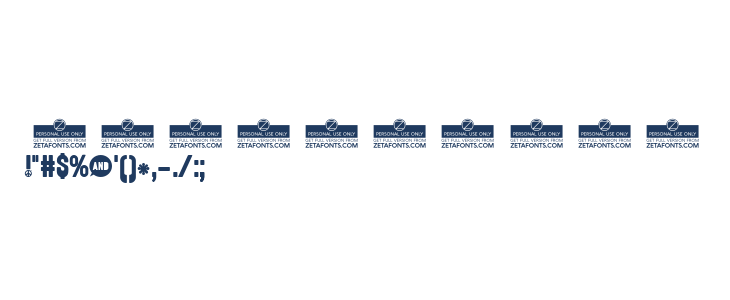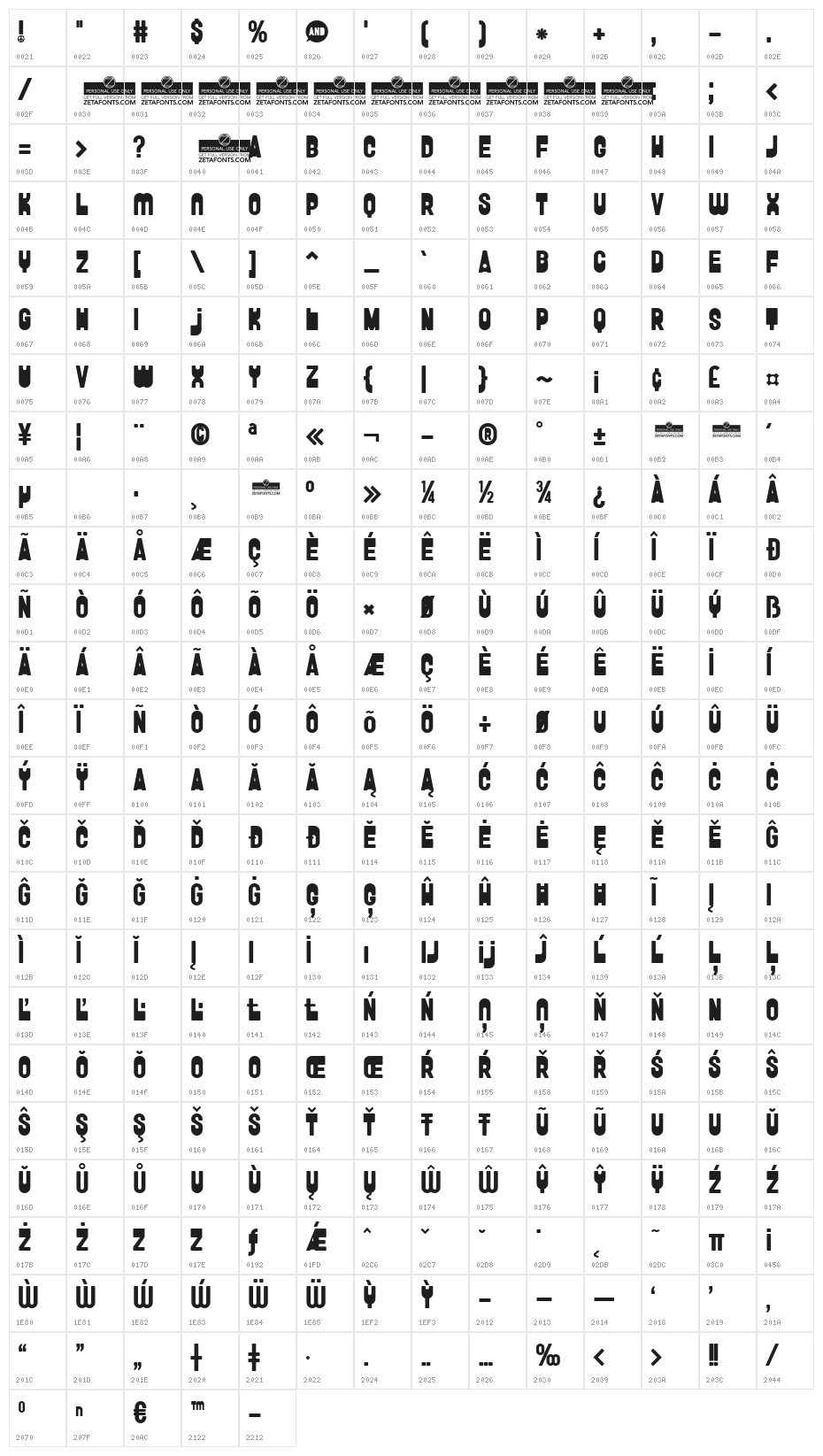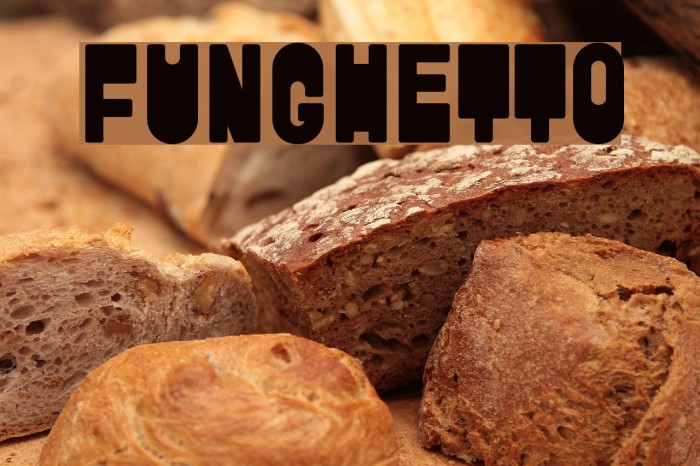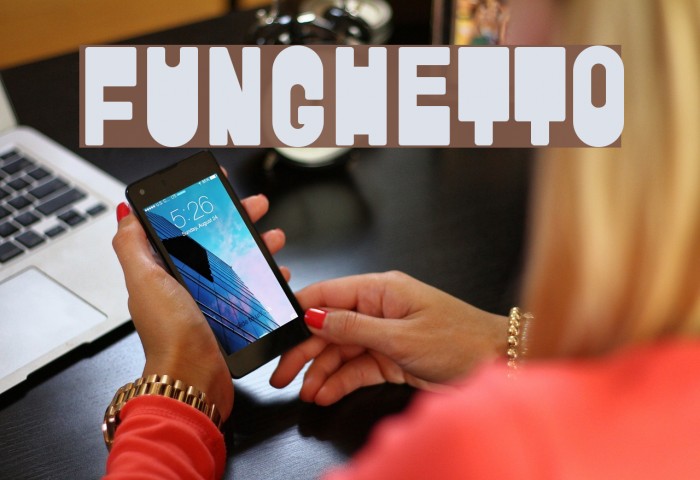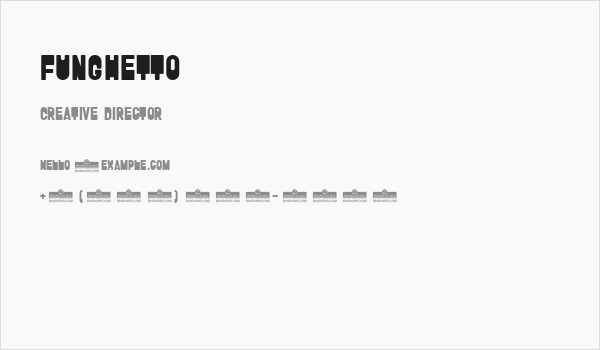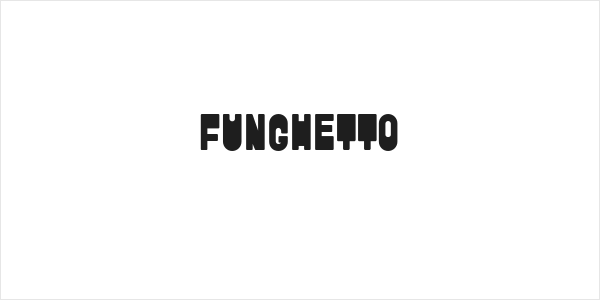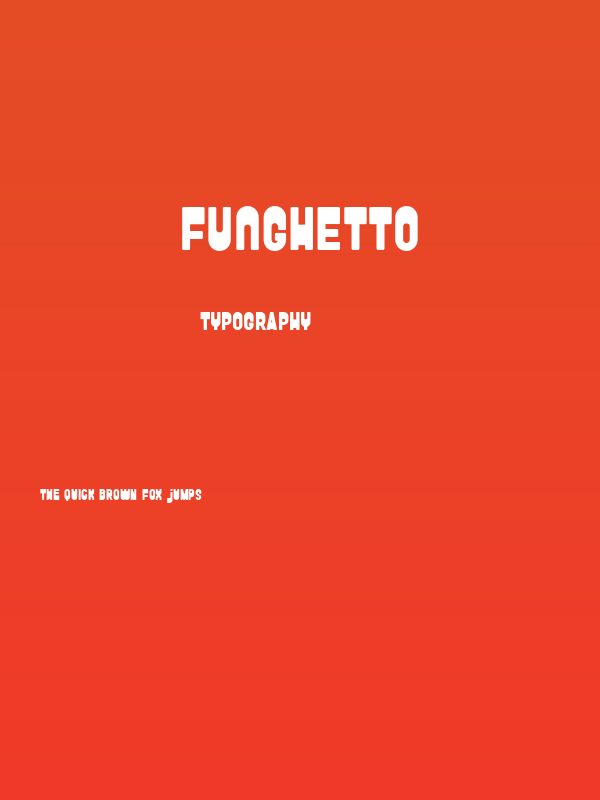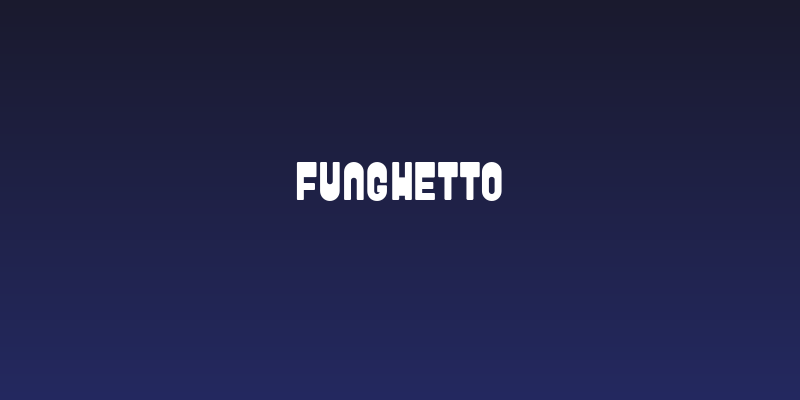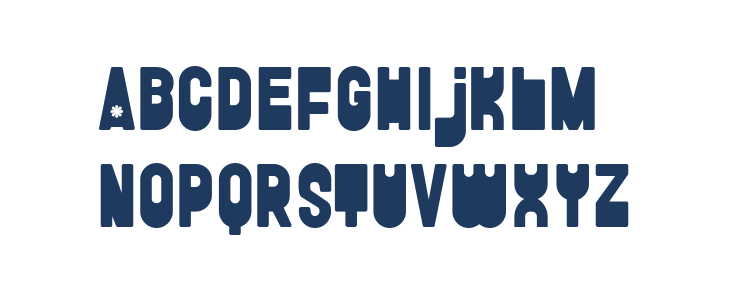
FunGhetto Font
FunGhetto Description
This font features bold, blocky characters with a playful and urban aesthetic. The letters are uniformly thick, creating a strong visual impact. The style is reminiscent of graffiti or street art, with a modern twist. The uppercase and lowercase letters maintain a consistent width, contributing to a cohesive look. Special characters are creatively designed, adding to the font's unique personality. The overall appearance is both striking and approachable, making it suitable for projects that require a bold statement.
| Overall Style | Modern, Urban |
| Proposed Projects | Ideal for street art-inspired designs, posters, branding for urban clothing lines, or any project needing a bold, modern touch. |